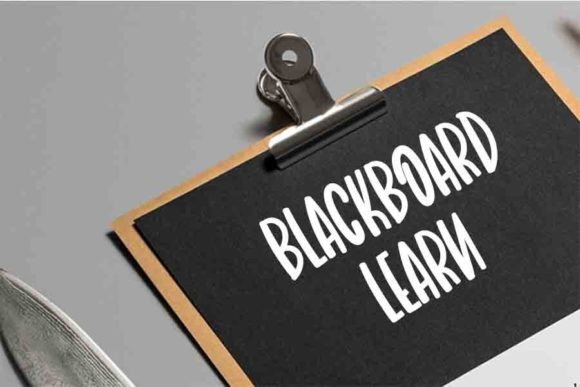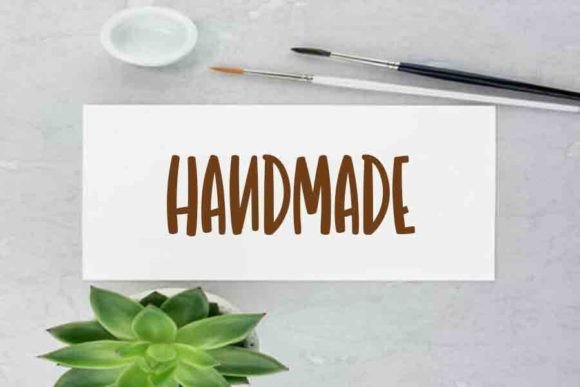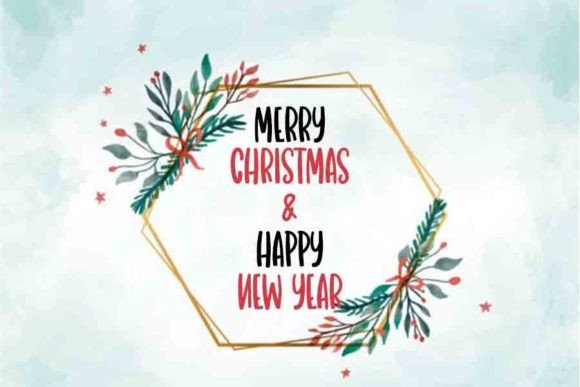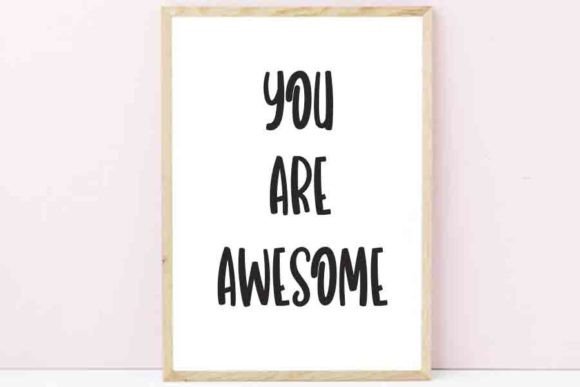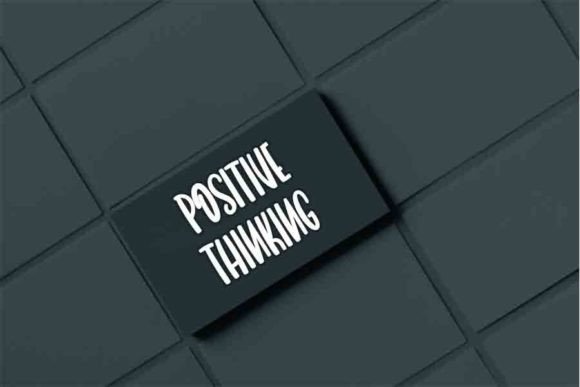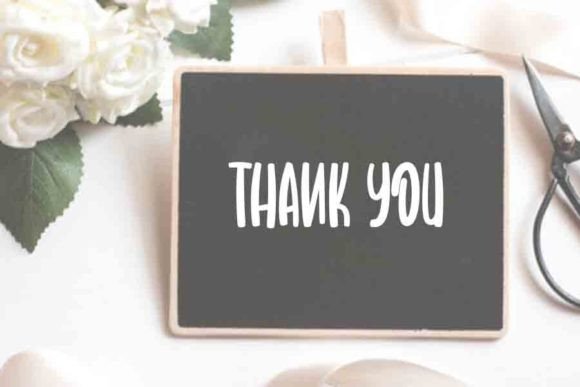
Introducing Classmatee Font: The Fresh and Beautiful Handwritten Font for All Occasions
Are you tired of using the same old fonts for your crafts, digital designs, presentations, and greeting cards? Look no further! Classmatee Font is here to revolutionize the way you approach typography. This fresh and beautiful handwritten font is perfect for anyone looking to add a personal touch to their projects. Whether you’re a designer, crafter, or simply someone who loves to create, Classmatee Font is sure to become your new favorite go-to font.
The Characteristics of Classmatee Font
So, what makes Classmatee Font so special? For starters, its handwritten style gives it a warm and inviting feel that’s perfect for a wide range of applications. The font is clean, elegant, and highly legible, making it easy to read and understand. The letters are carefully crafted to have a consistent look and feel, which gives the font a sense of cohesion and harmony.
Uses for Classmatee Font
One of the best things about Classmatee Font is its versatility. This font can be used for a wide range of projects, including:
- Crafts: Add a personal touch to your scrapbooking, journaling, and other paper crafts with Classmatee Font.
- Digital Design: Use Classmatee Font to create stunning digital art, social media graphics, and blog posts.
- Presentations: Make your presentations stand out with Classmatee Font’s elegant and professional look.
- Greeting Cards: Create beautiful and heartfelt greeting cards for special occasions with Classmatee Font.
Why Designers and Crafters Love Classmatee Font
Designers and crafters alike will love Classmatee Font for its unique combination of style and functionality. Here are just a few reasons why:
- Easy to Read: Classmatee Font is highly legible, making it perfect for projects where readability is key.
- Highly Versatile: Classmatee Font can be used for a wide range of projects, from digital design to paper crafts.
- Beautiful and Elegant: Classmatee Font has a beautiful, elegant look that’s sure to impress.
- Perfect for Branding: Use Classmatee Font to create a consistent brand identity across all your marketing materials.
Tips for Using Classmatee Font
Here are a few tips for getting the most out of Classmatee Font:
- Experiment with Different Sizes: Classmatee Font looks great in a variety of sizes, from large headings to small body text.
- Pair it with Other Fonts: Try pairing Classmatee Font with other fonts to create a unique and interesting look.
- Use it for Headings and Titles: Classmatee Font is perfect for headings and titles, where its elegant look can really shine.
| Font Name | Classmatee Font |
| Author | Merry Joana |
In conclusion, Classmatee Font is a fresh and beautiful handwritten font that’s perfect for designers, crafters, and anyone who loves to create. Its versatility, elegance, and readability make it a great choice for a wide range of projects. Whether you’re looking to add a personal touch to your crafts, create stunning digital art, or make your presentations stand out, Classmatee Font is sure to become your new favorite go-to font.